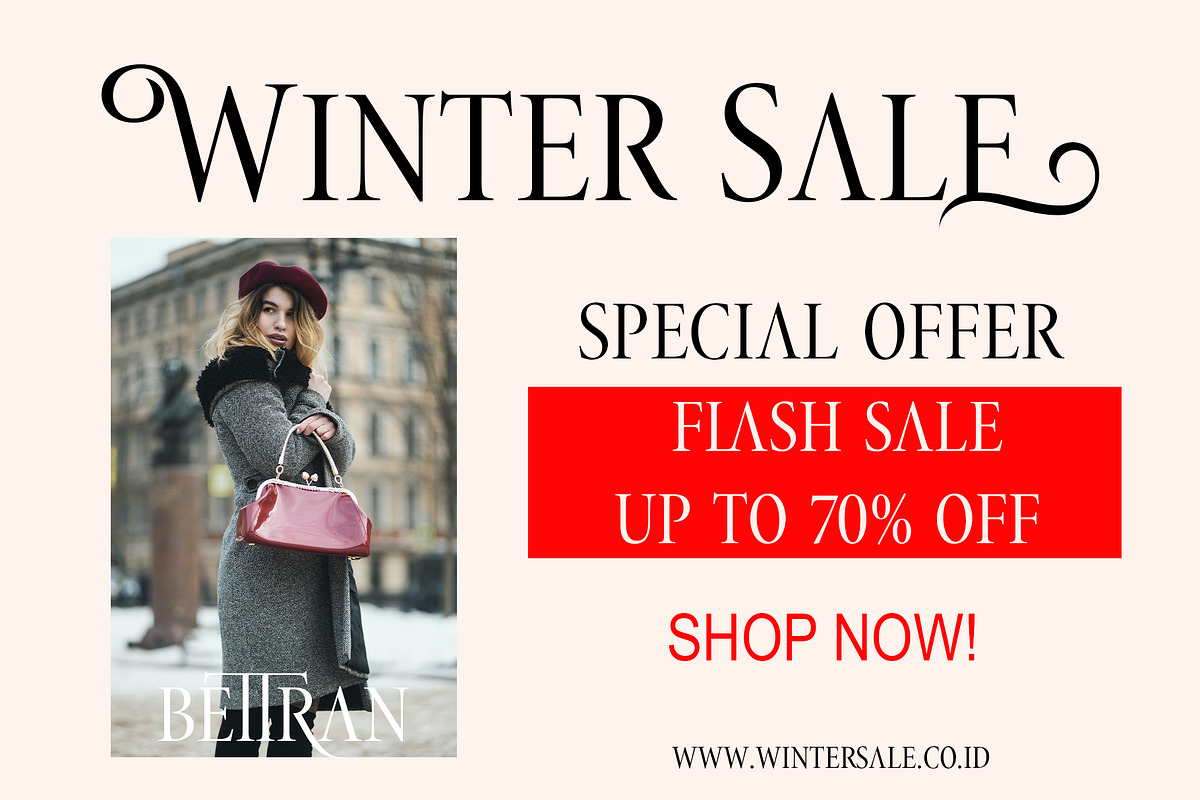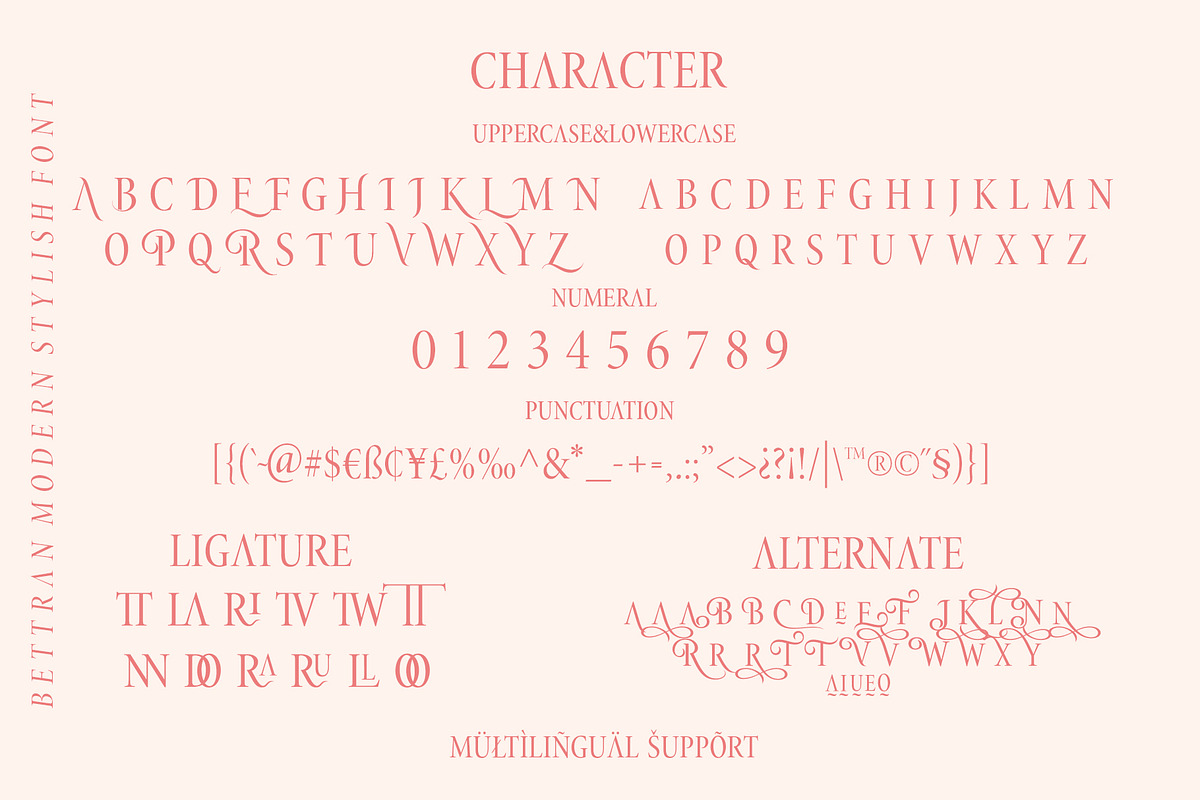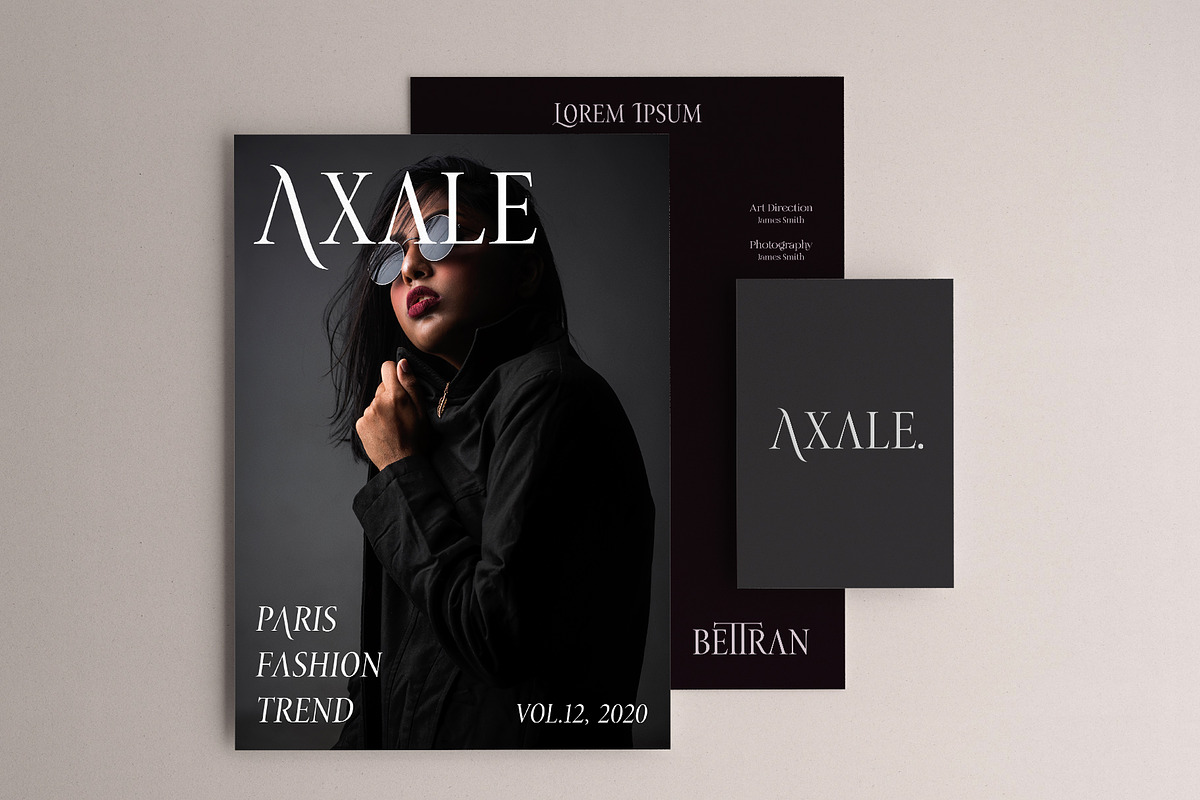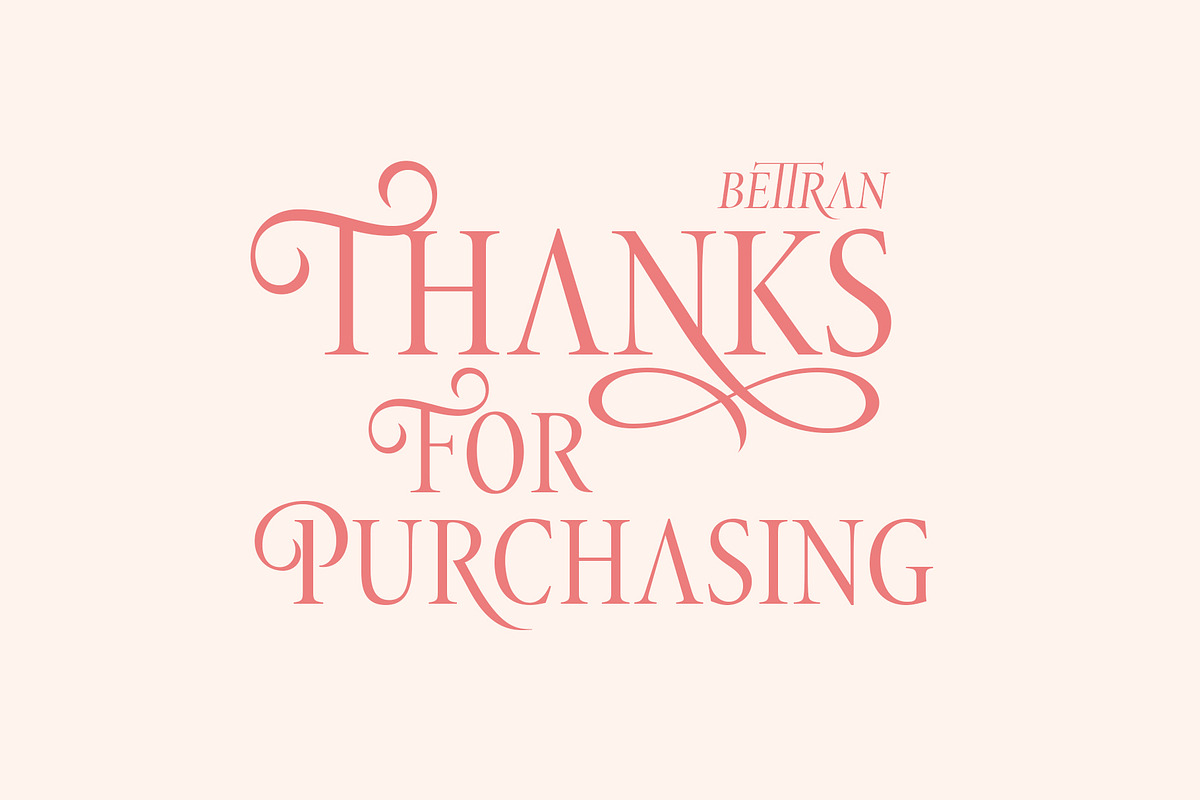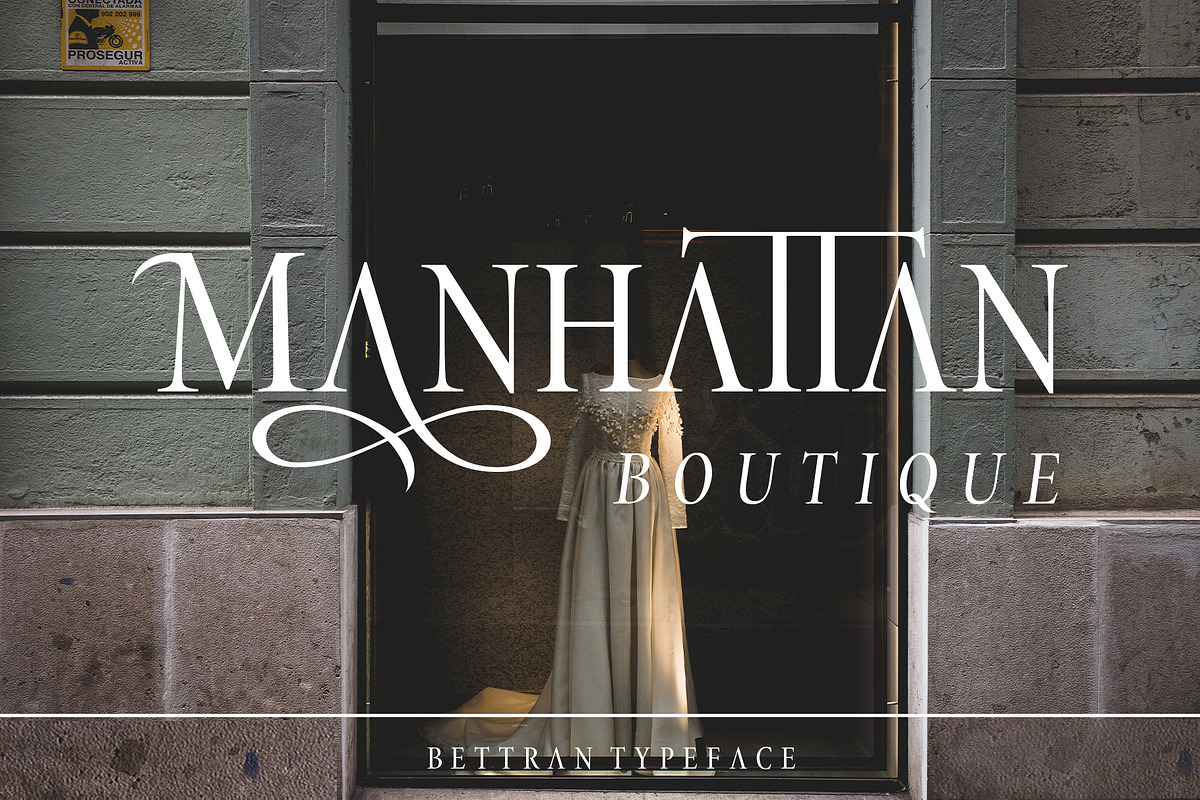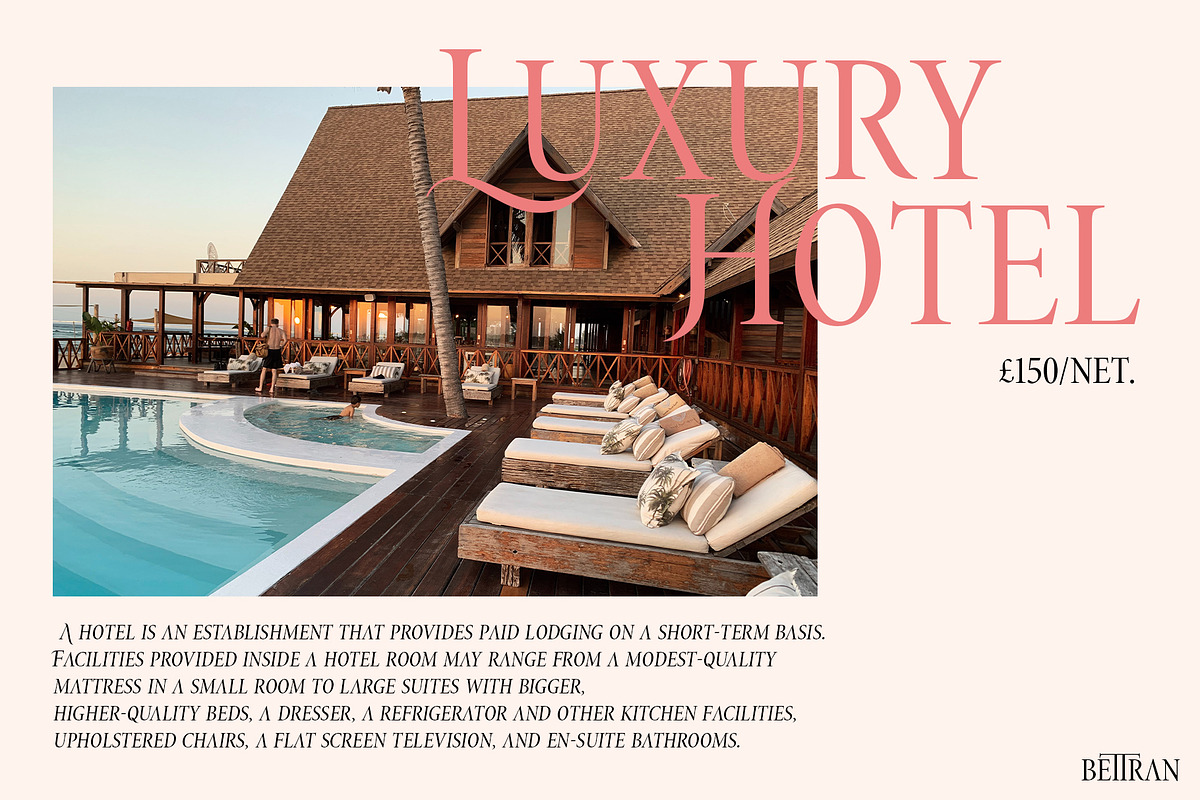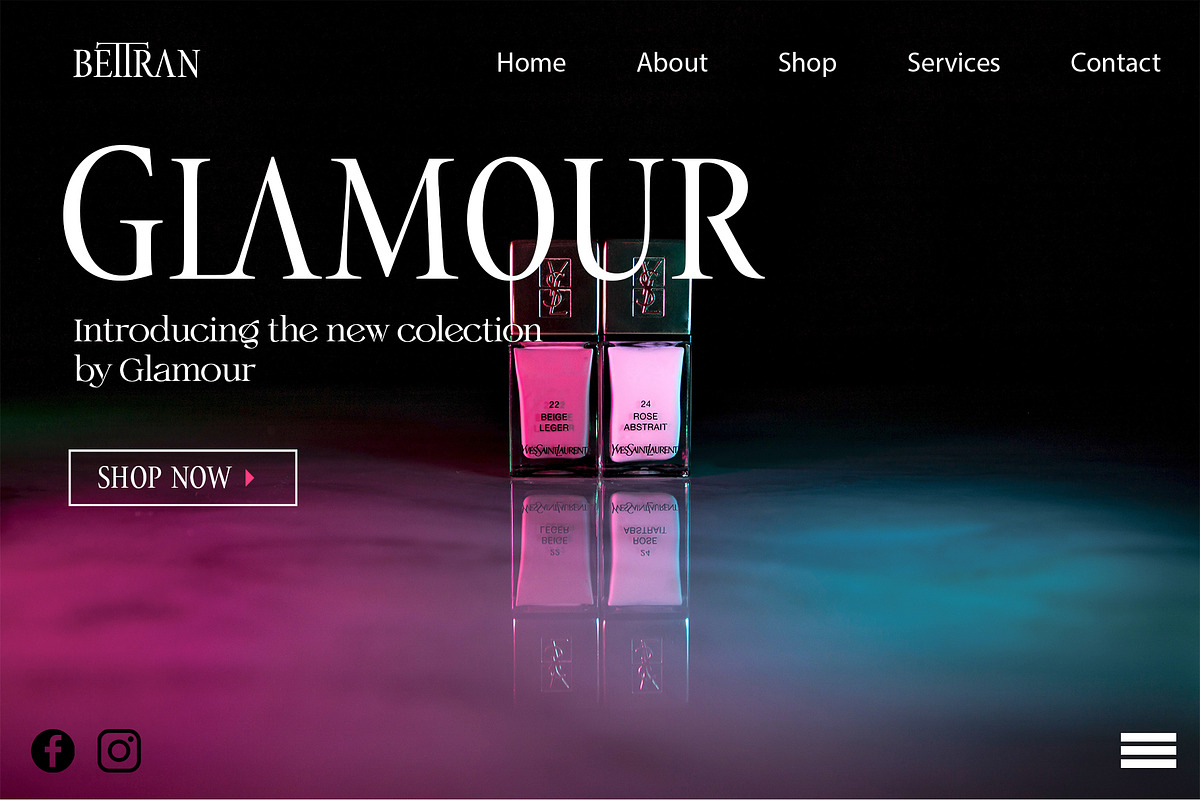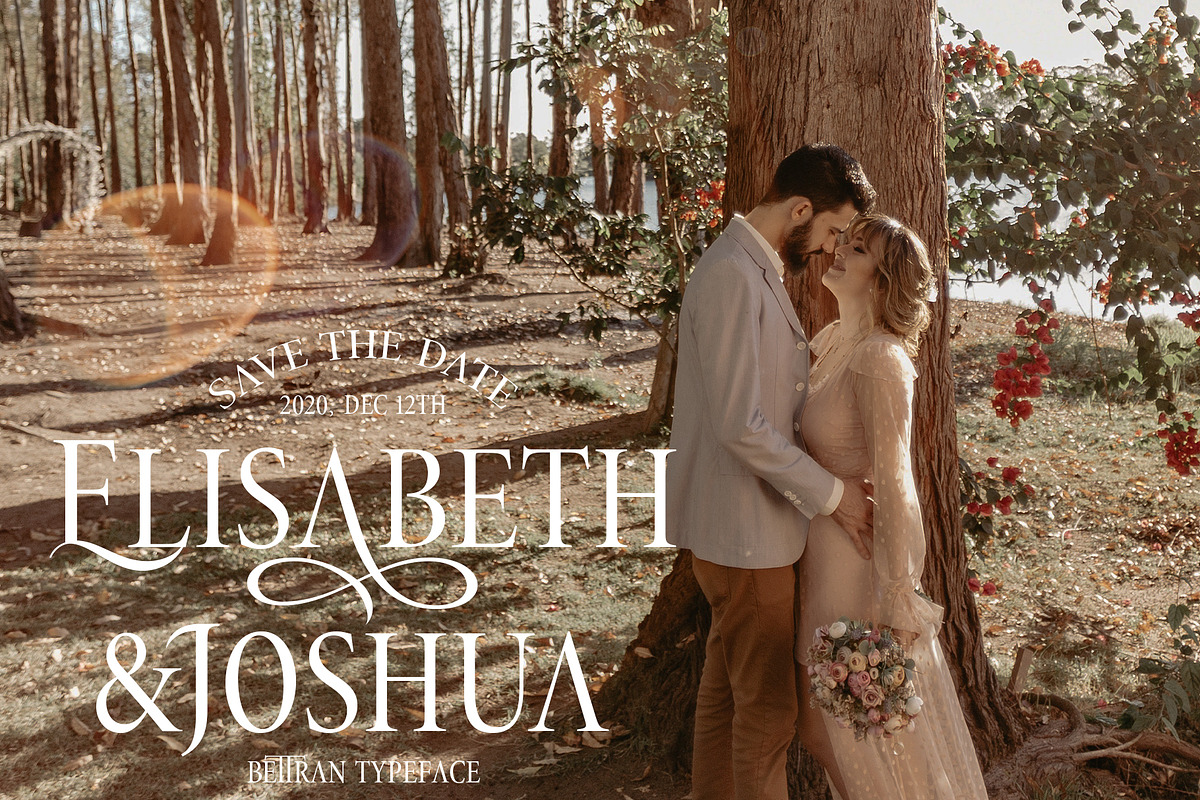
BETTRAN
Hello, on this occasion, we would like to introduce a new font. which we named him BETTRAN, a font that we design with an elegant, stylish and simple shape at a relatively affordable price but has good quality. This font has the following advantages.
- Numeral
- Functional
- Stylistic